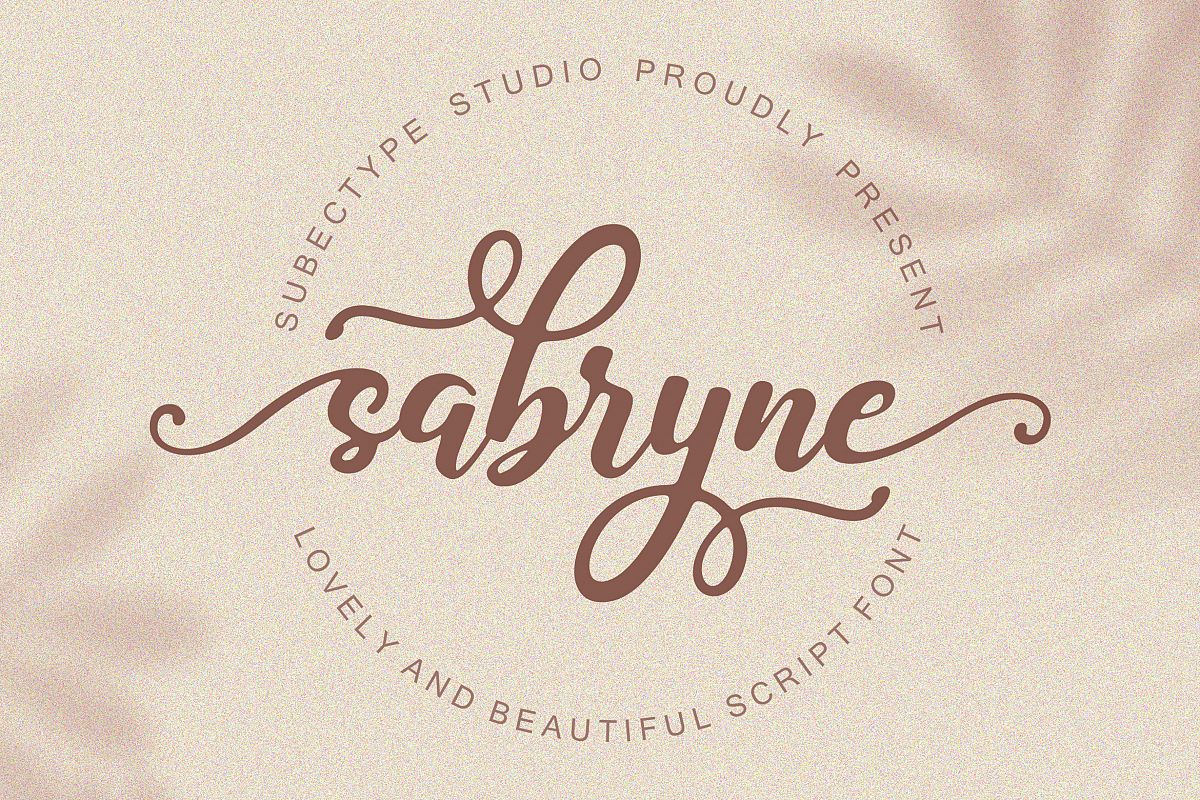
Sabryne
The Sabryne font is a beautiful and lovely script. It has a great readability and will add a fun and lovely touch to any design.It’s great for branding, logo designs, lettering, logotype, clothing, posters, magazines, and much more!